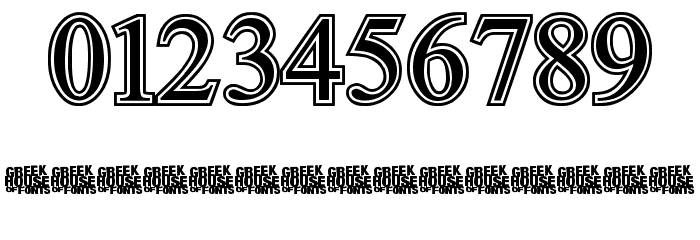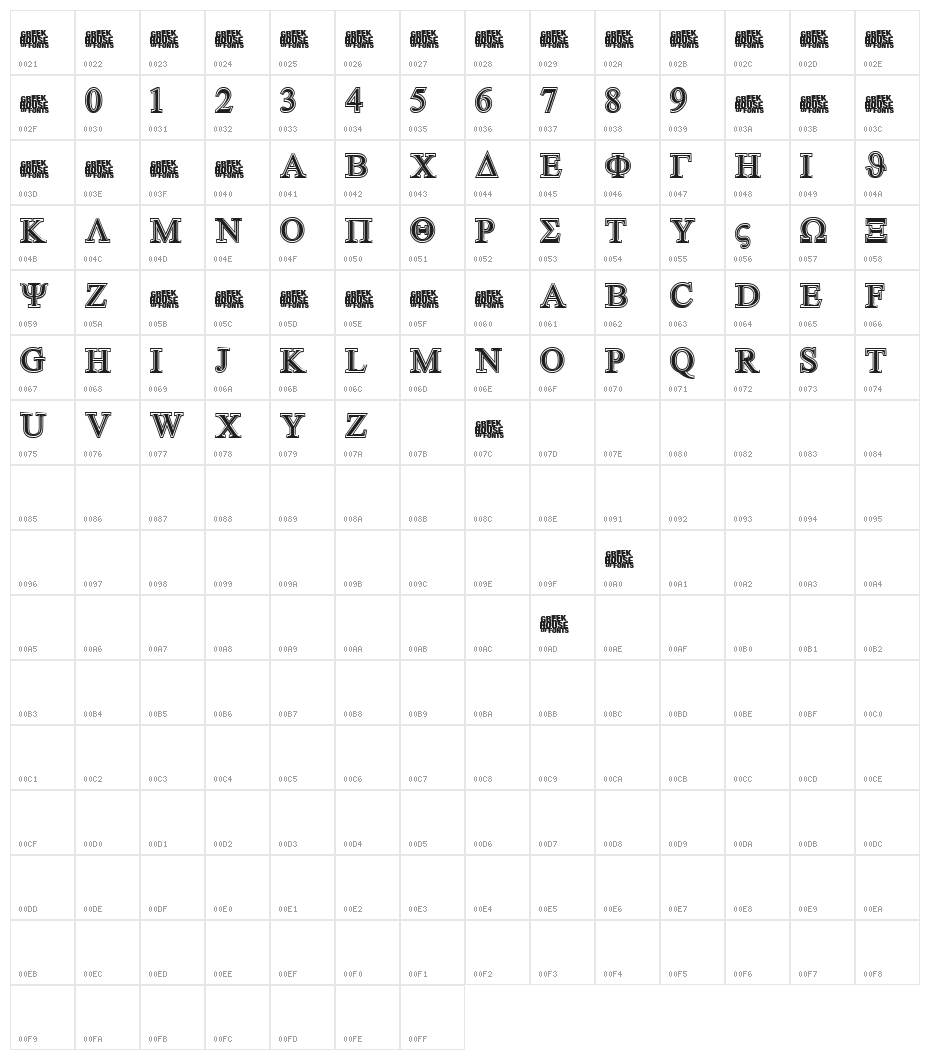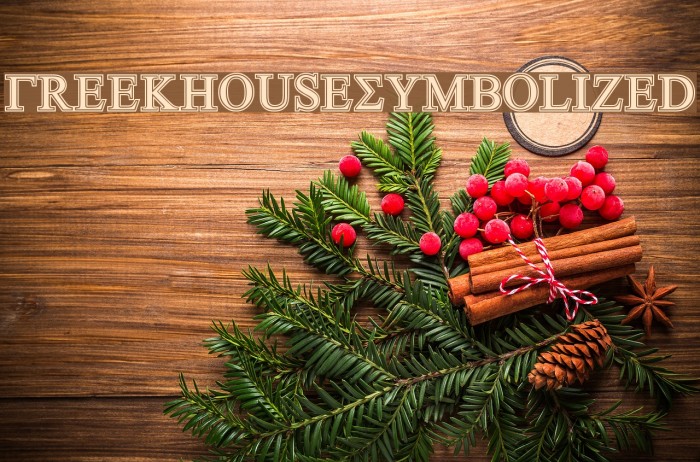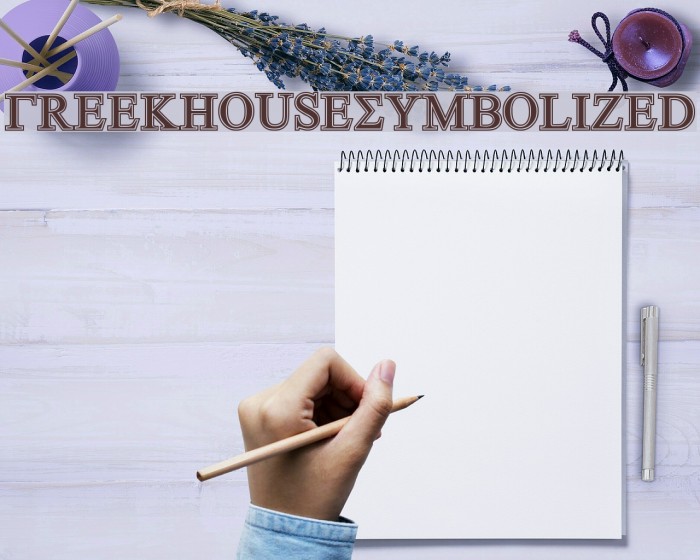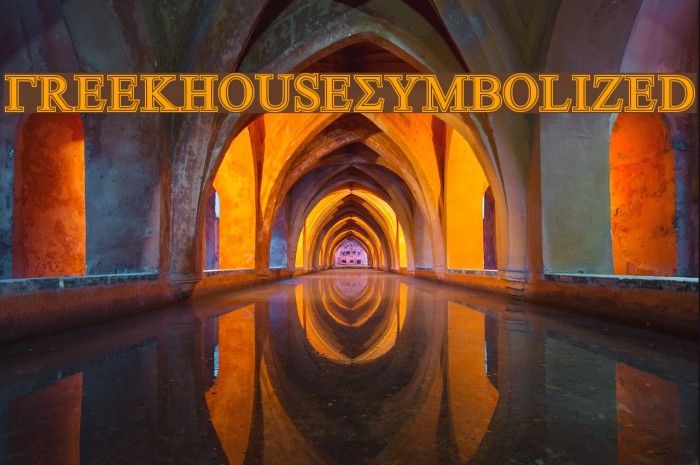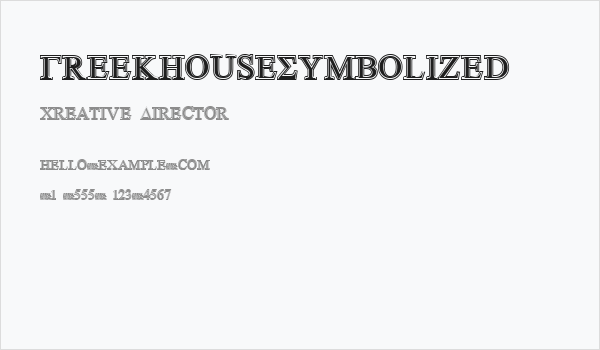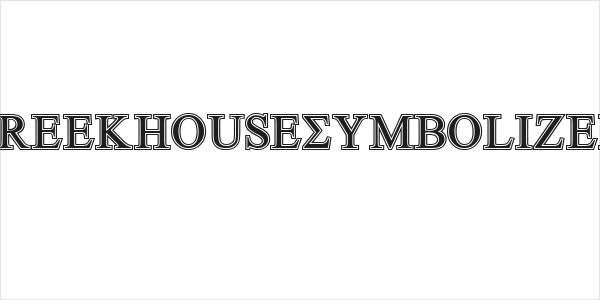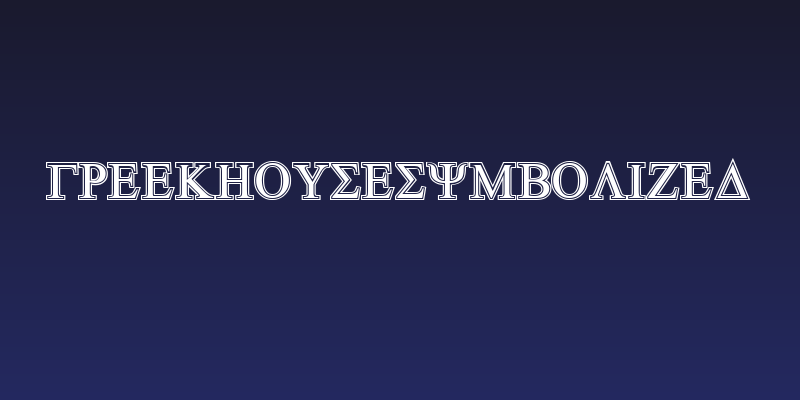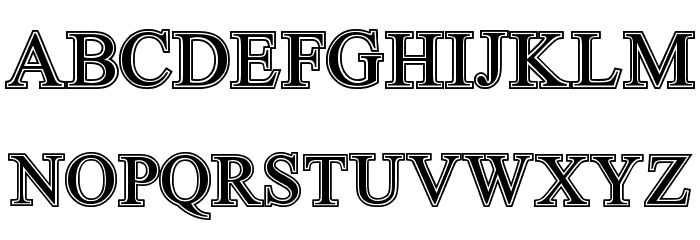
GreekHouseSymbolized Font
GreekHouseSymbolized Description
This font features a bold and striking design with a double-outline style, reminiscent of traditional Greek lettering. The uppercase letters are prominent and commanding, with a distinct geometric influence that adds a sense of structure and formality. The numbers are equally bold, maintaining the same double-outline effect, which enhances their visibility and impact. The font's overall appearance is both classic and decorative, making it ideal for projects that require a touch of elegance and tradition. Its unique style is perfect for creating eye-catching headlines, logos, or any design that seeks to evoke a sense of history and grandeur.
| Overall Style | Classic, Decorative |
| Proposed Projects | This font is perfect for creating logos, headlines, posters, and any design work that requires a classic and decorative touch. It is also suitable for branding projects that aim to convey elegance and tradition. |